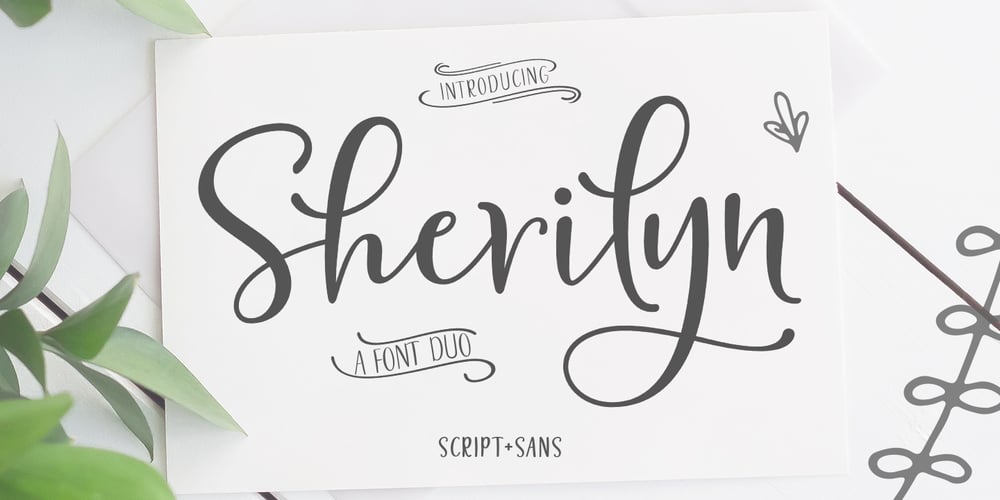
Sherilyn Script Font Duo Font Family was designed by Mur Zani and published by Zane Studio. Sherilyn Script Font Duo contains 2 styles and family package options. Sherilyn Script Font DUO is a new modern script font with an irregular base line. Trendy and feminine style. Sherilyn Script looks beautiful in wedding invitations, thank-you cards, quotes, greeting cards, logos, business cards, and more. Perfect for use in ink or watercolors. Including initial letters and terminals, alternatives and support for many languages.Files include:Sherilyn Script.OTFSherilyn Script.TTFSherilyn SANS.OTFSherilyn SANS.TTFTo activate the OpenType Stylistic alternative, you need a program that supports OpenType features such as Adobe Illustrator CS, Adobe Indesign & CorelDraw X6-X7, Microsoft Word 2010 or newer versions. There are additional ways to access alternatives / swash, using Character Map (Windows), Nexus Fonts (Windows), Font Books (Mac) or software programs such as PopChar (for Windows and Mac).How to access all alternative characters:https: //www.youtube.com/watch? v = Go9vacoYmBwhttps: //www.youtube.com/watch? v = XzwjMkbB-wQhttps: //www.yo … need help or have questions, let me know. I am happy to help ๐ Thank you & Congratulations on the Design!